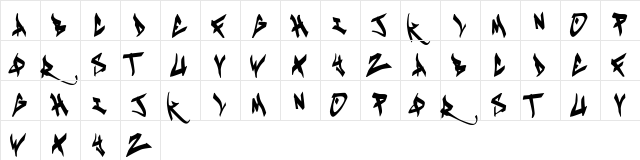
Keusta Regular
Design Context for Keusta Typeface
Keusta is a composed and adaptable typeface that performs quietly and consistently across a wide range of design contexts.
Pro Tip: Pair Keusta with a font of contrasting weight or personality to build a more expressive typographic hierarchy.